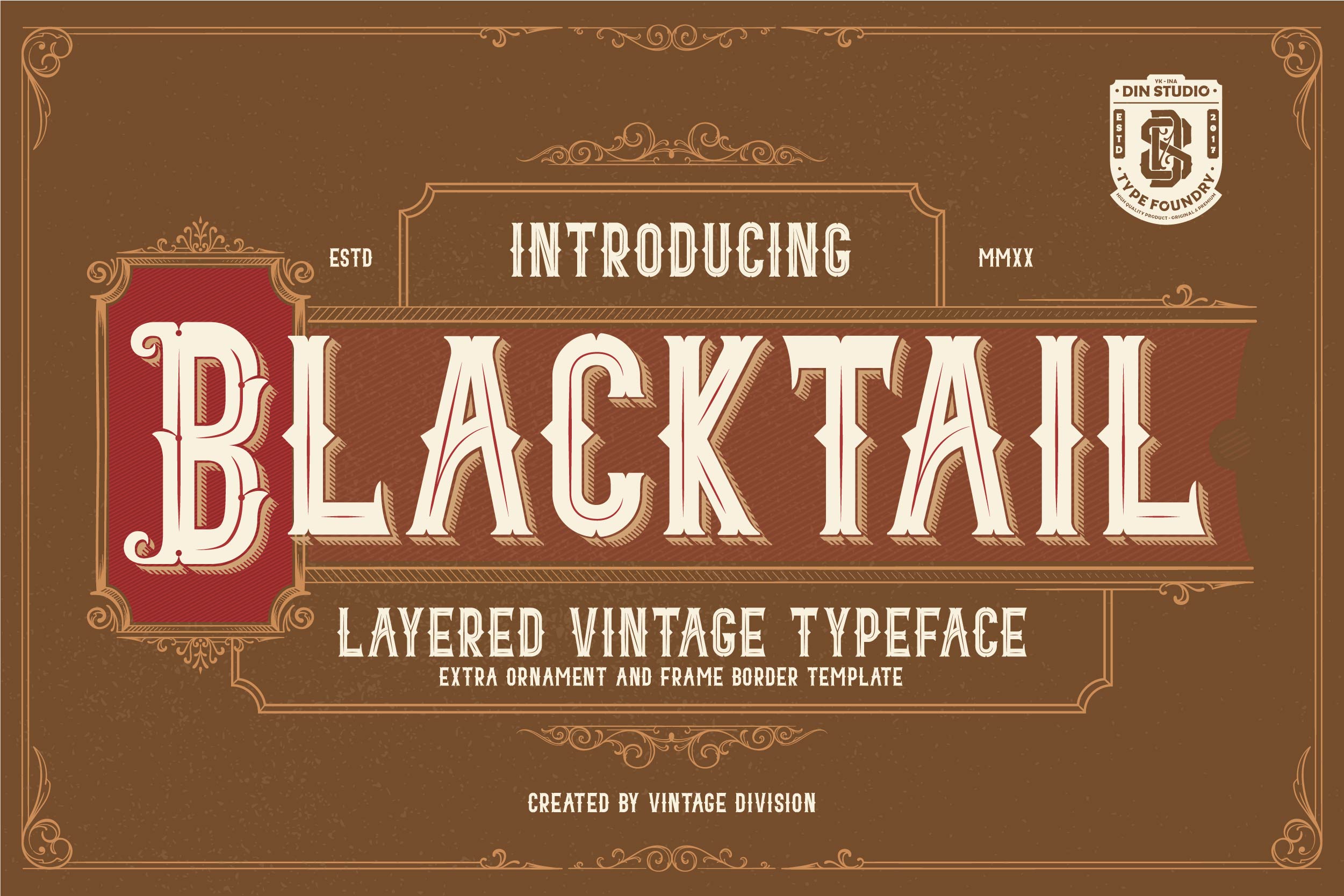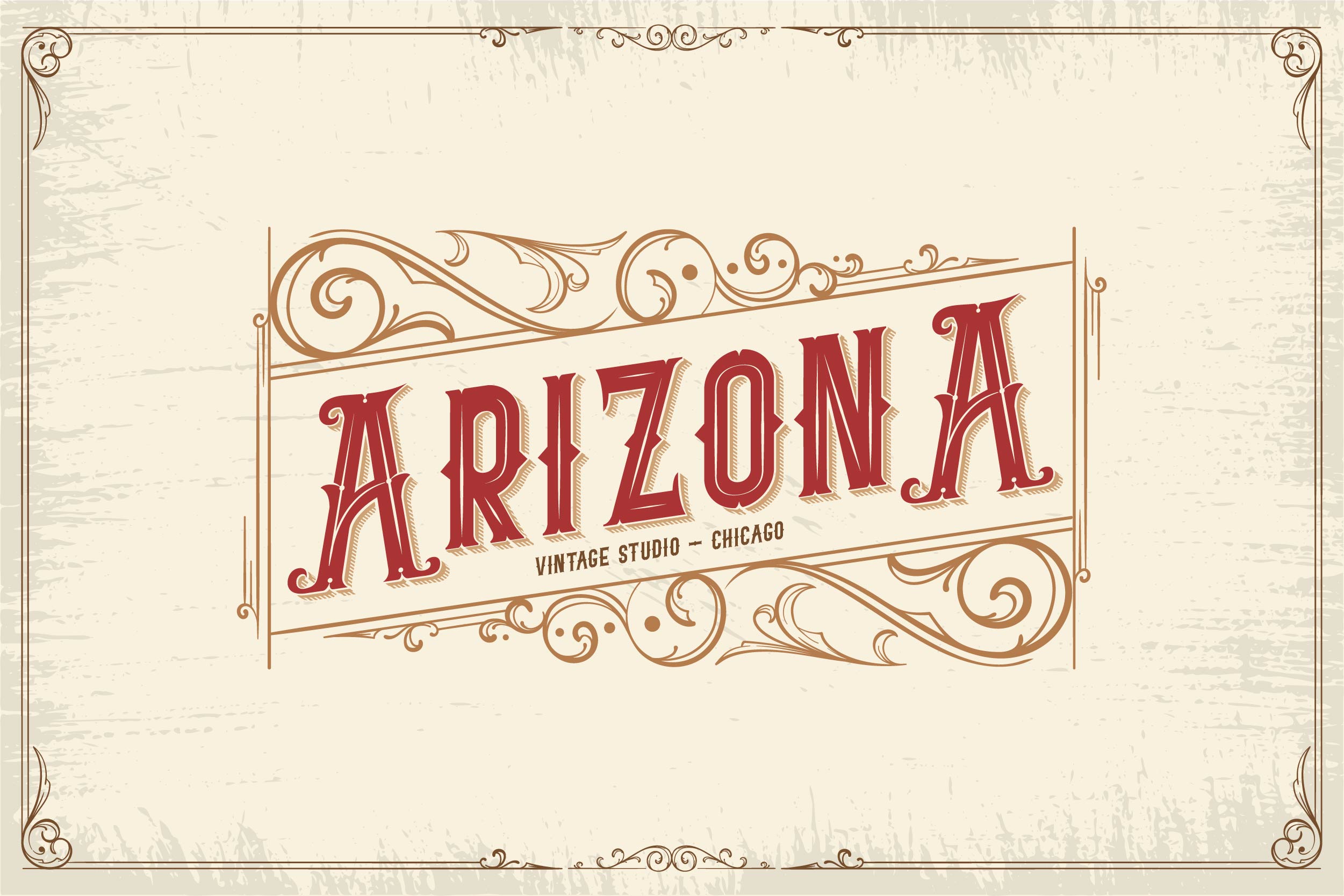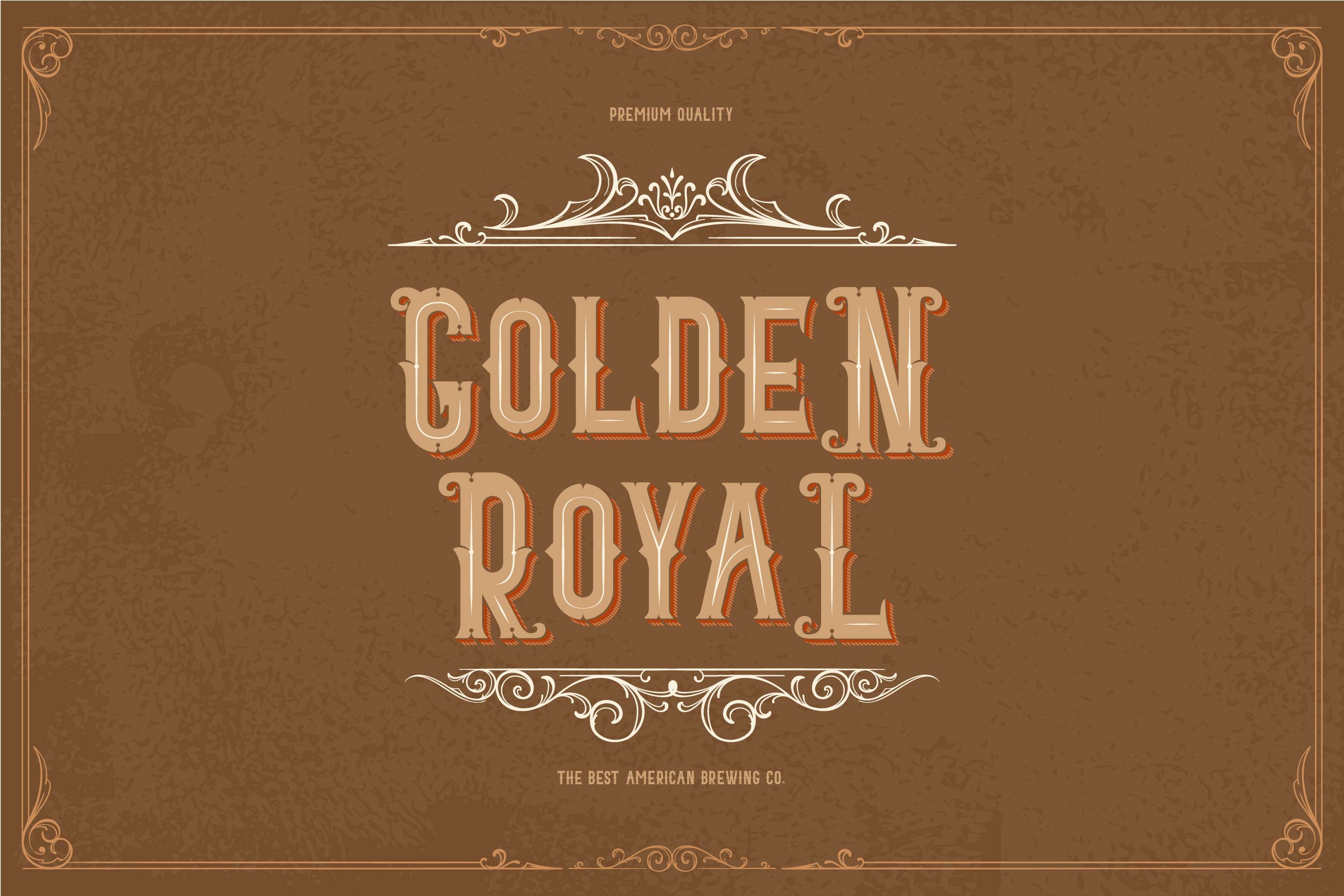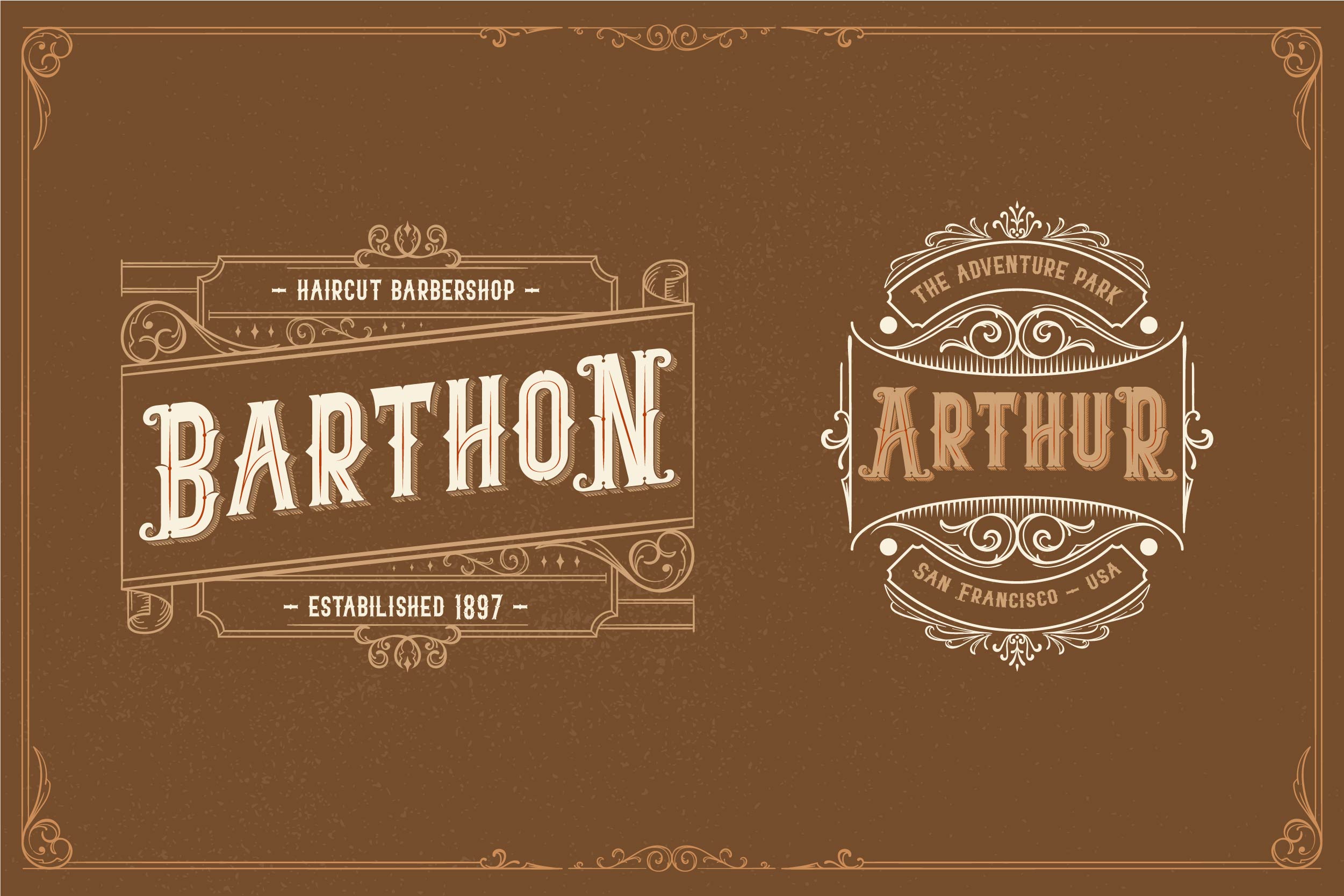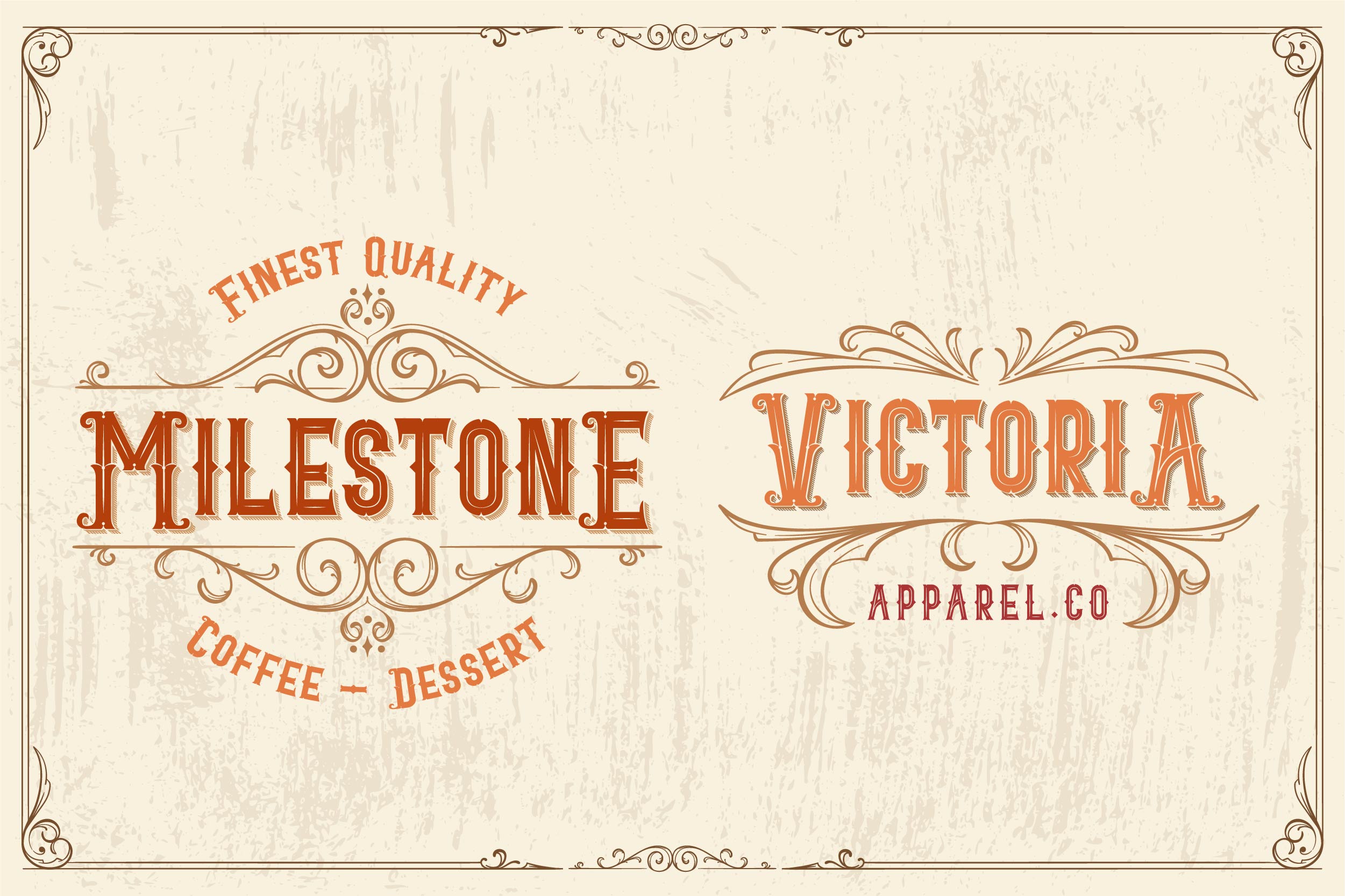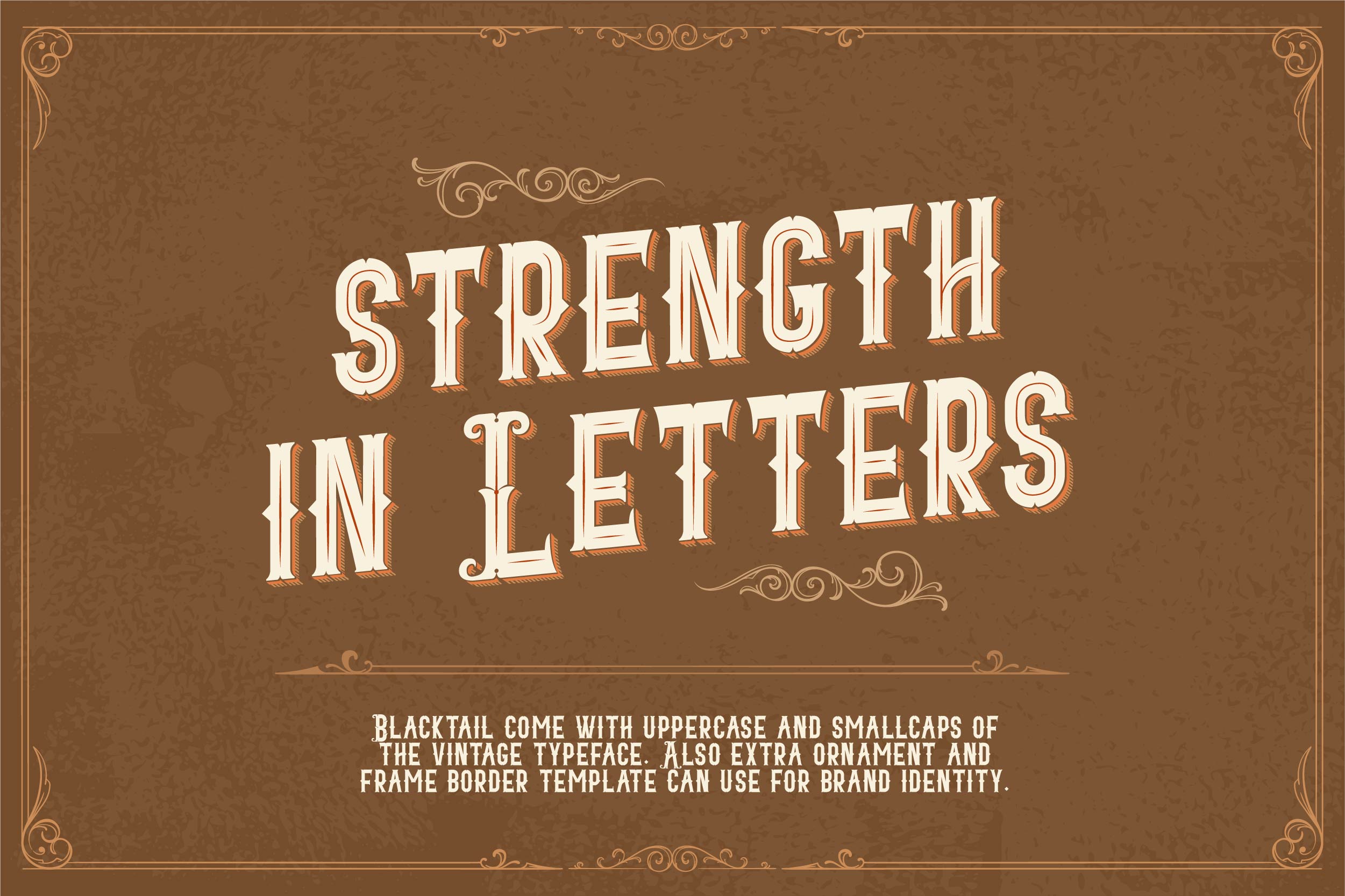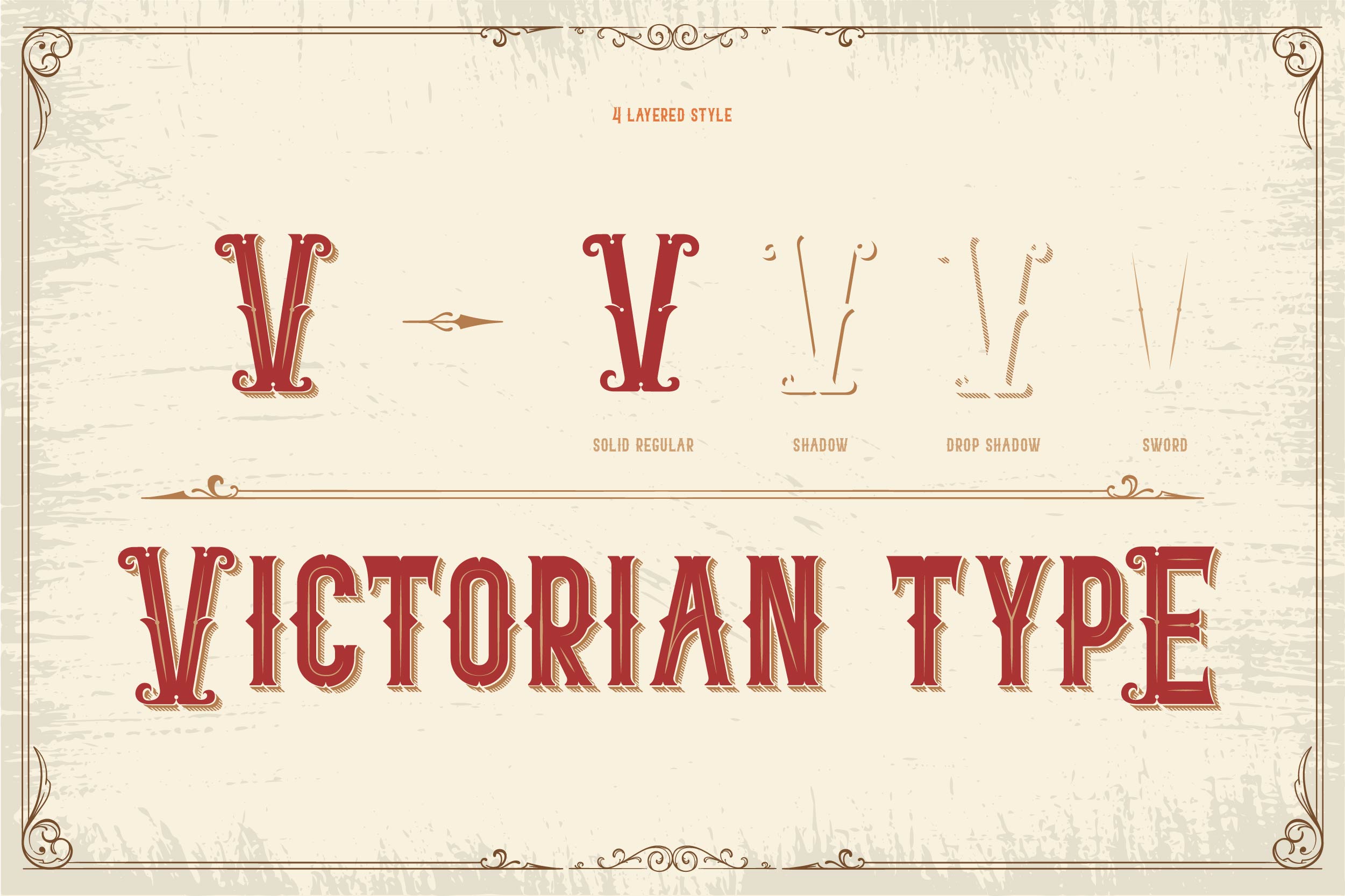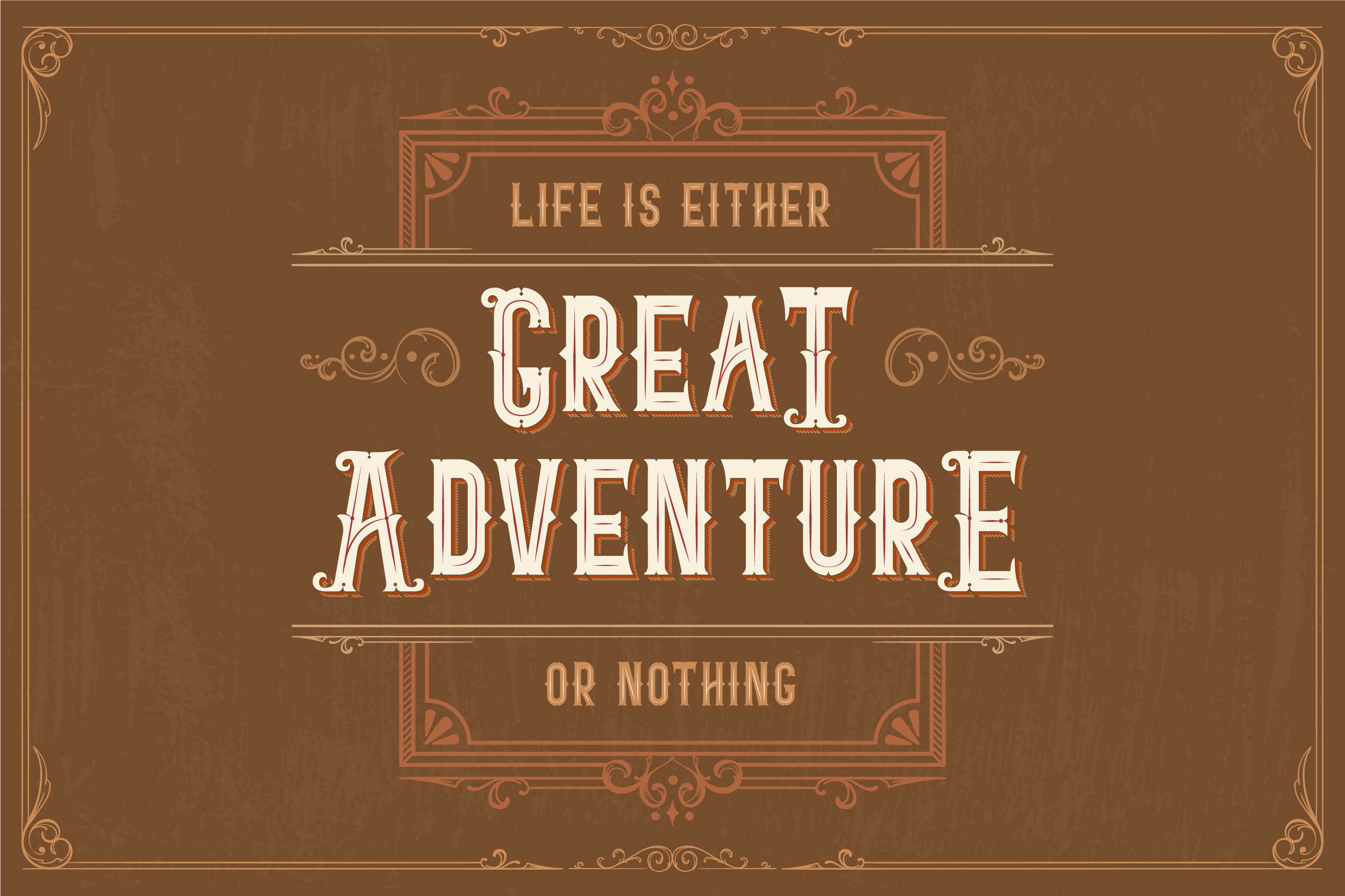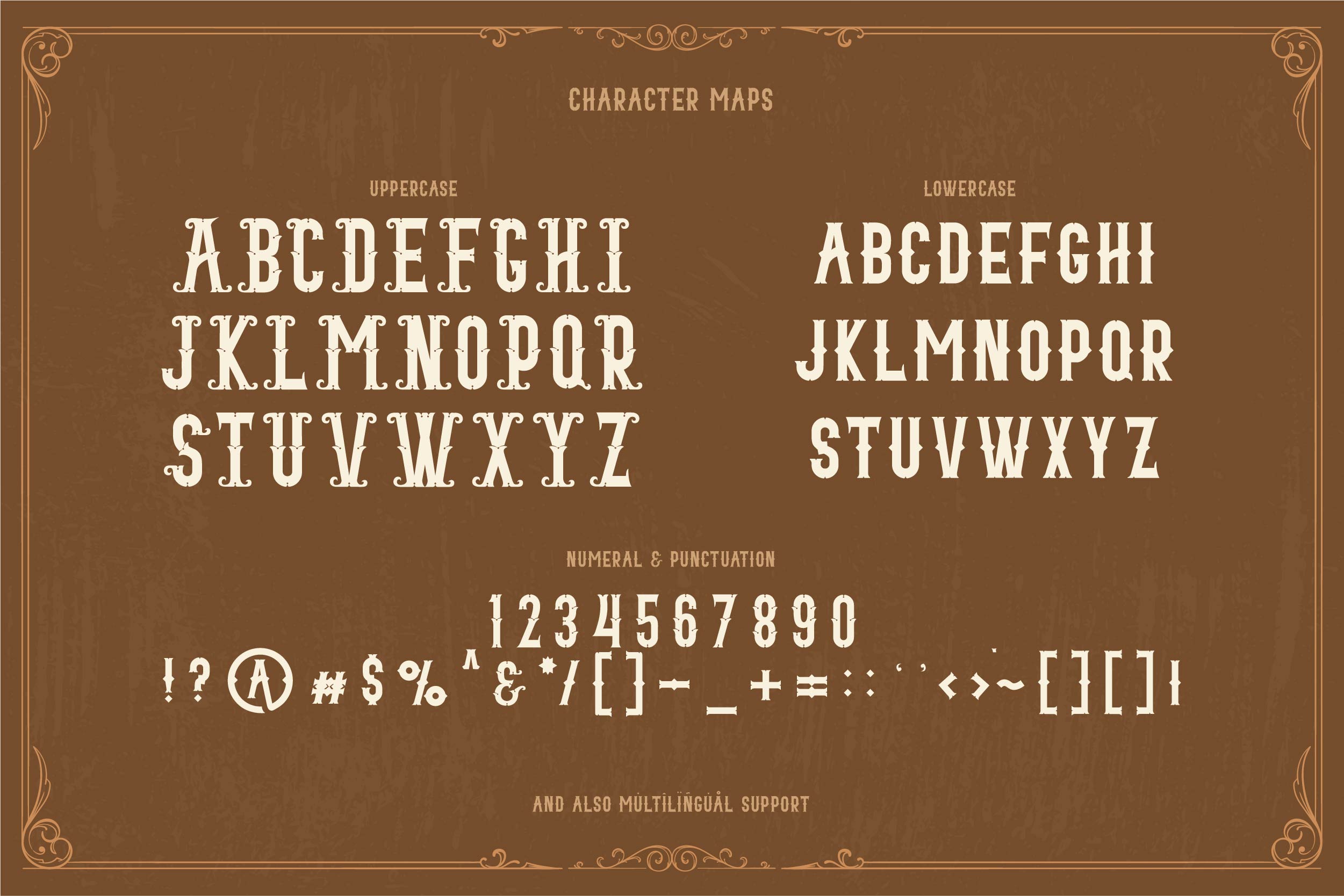
Blacktail
Calling out all Blacktail! Here is Blacktail Vintage Font for your vintage concept project designs. This font presents a vintage and layered style containing four layers. It is best for branding projects, t-shirt printings, book covers, film titles and any other designs needing vintage vibes on them. Make your design look powerful with this font.
Our font always includes a Multilingual Option to make your branding reach an audience globally.
Blacktail fits in headlines, logos, posters, flyers, branding materials, print media, editorial layouts, and many more. Find out more ways to use this font by taking a look at the font preview.